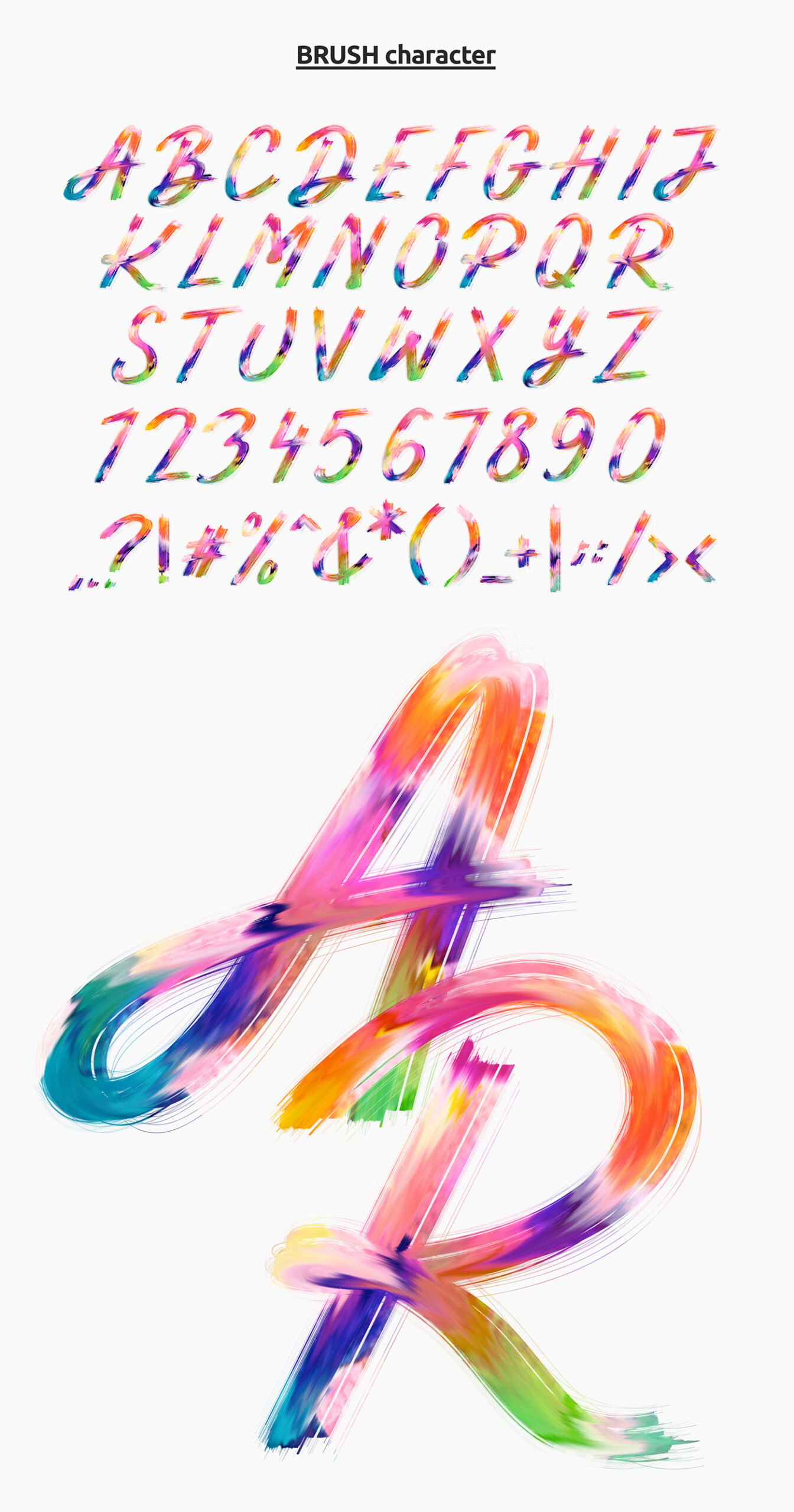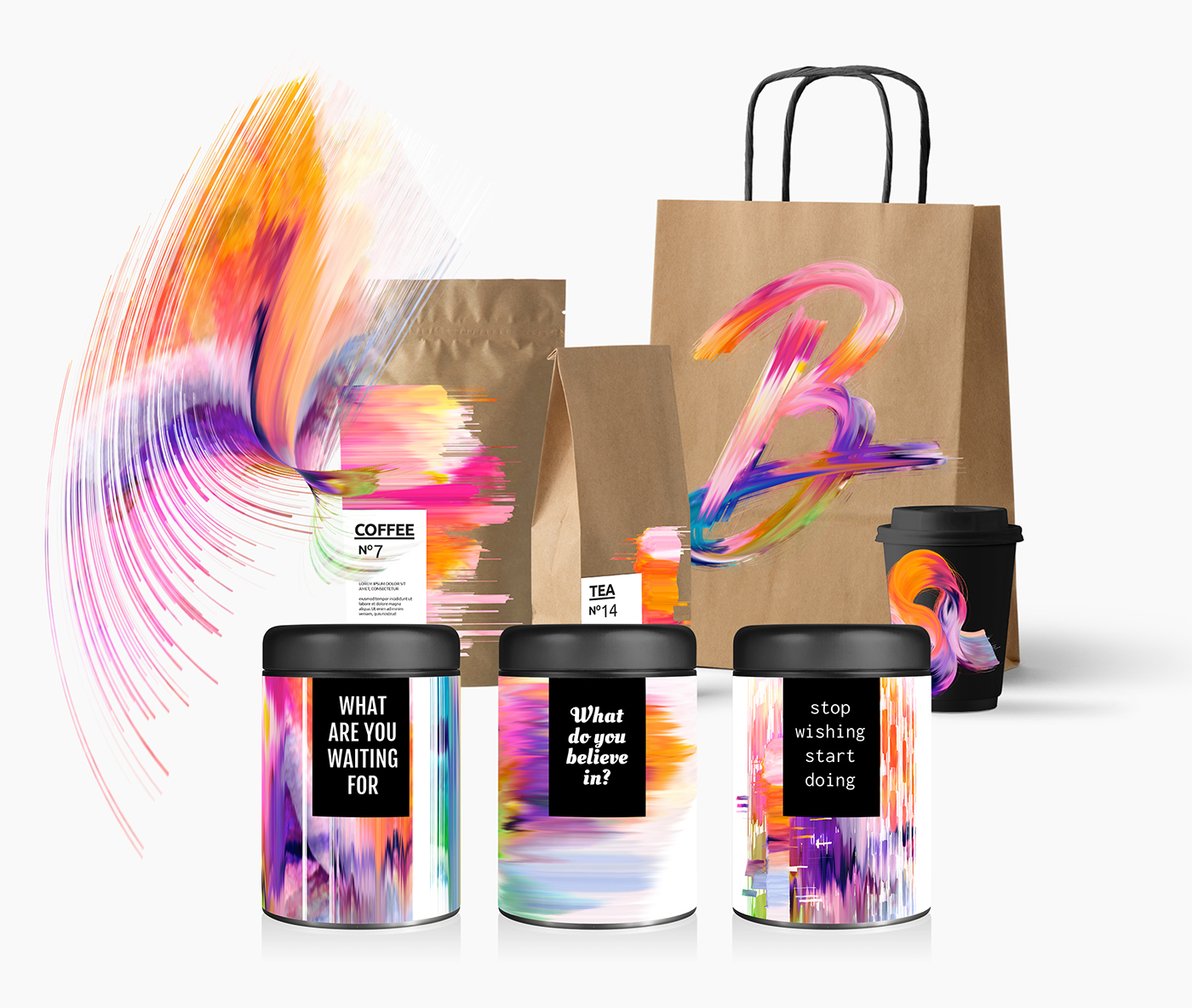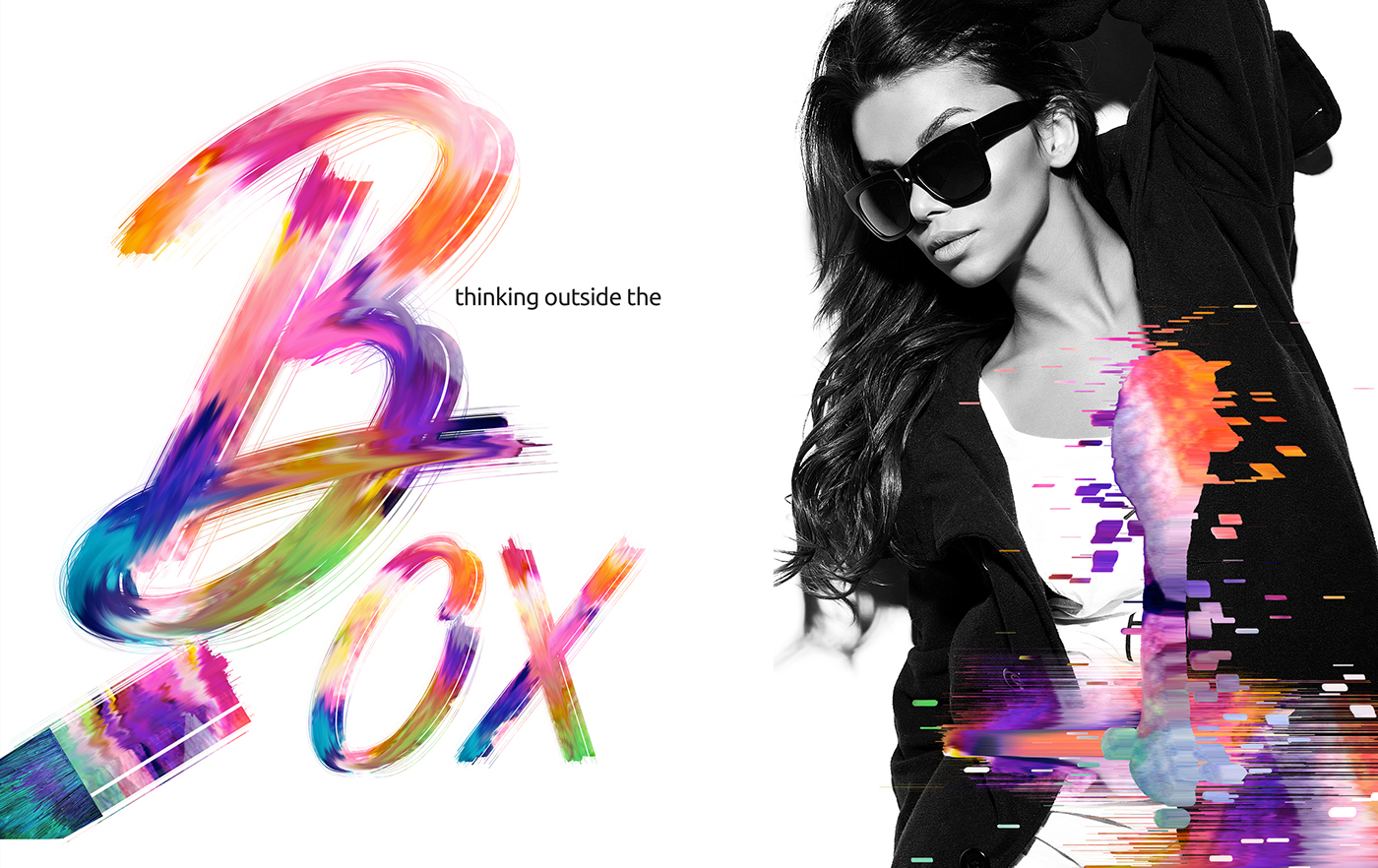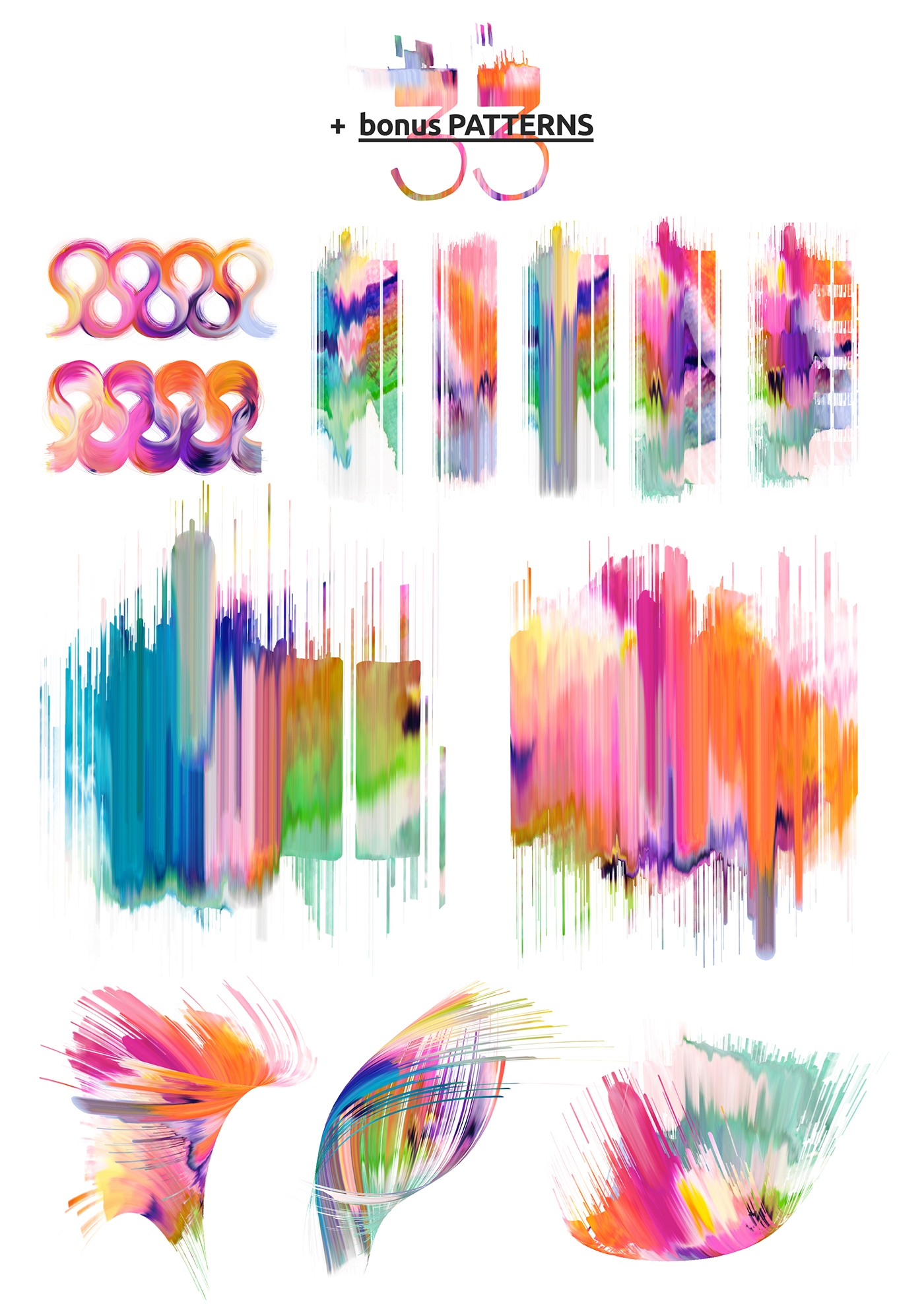
Hand-lettered fonts invariably add a touch of natural beauty to any project. When that typeface is a brush font, it adds even more elegance to the mix. This terrific Brush Font from Aga Magdziak is great for everything from fashion magazine-type projects to branding. The files is delivered as .psd (each letter is on a separate layer) and includes bonus patterns! Free for personal & commercial use!